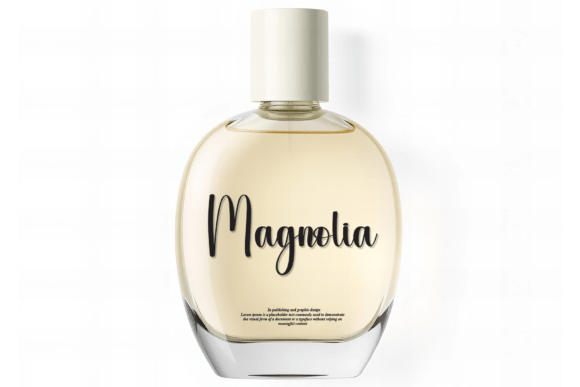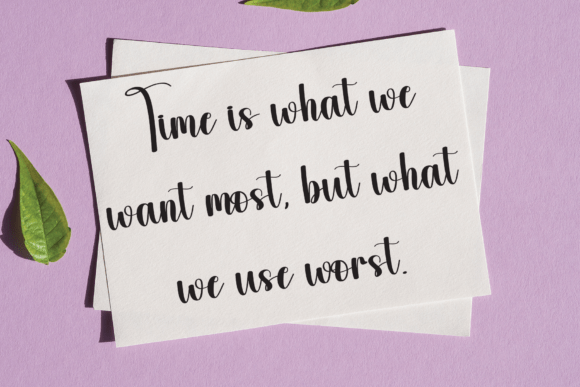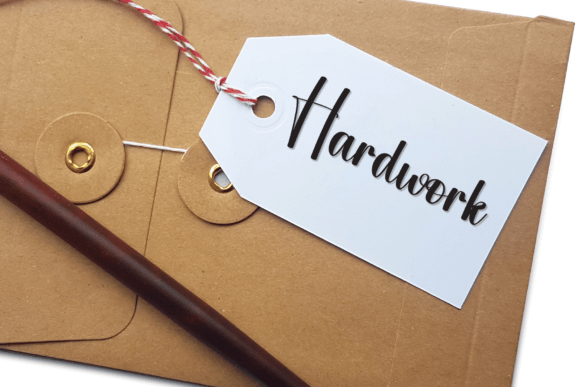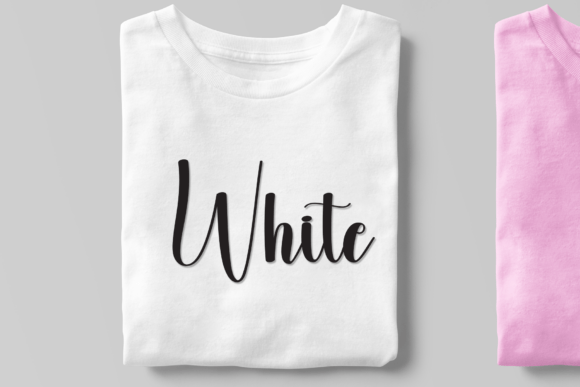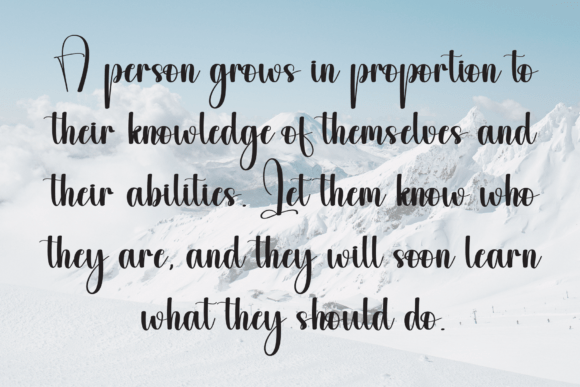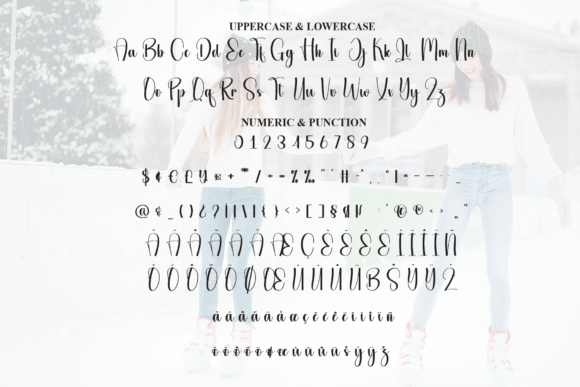
Introduction to Skating Christmas Font
As designers, we’ve all been there – staring at a blank canvas, searching for the perfect font to bring our creative project to life. It’s a moment of clarity, when everything comes together, and our vision takes shape. For many of us, that moment is made possible by discovering the perfect font – one that elevates our design and leaves a lasting impression. Enter the Skating Christmas Font, a stylish script font that’s about to become your new go-to design resource.
With its elegant strokes, fluid curves, and carefully crafted letterforms, the Skating Christmas Font exudes a sense of refinement and sophistication. Whether you’re working on a high-quality logo, invitation, or packaging design, this font delivers both versatility and visual appeal. And the best part? You can download it with a transparent background, making it easy to layer and customize to fit your unique design style.
Key Features of Skating Christmas Font
- Unique and festive design ideal for creative projects and holiday-themed designs.
- Perfect for use in various design projects, including posters, greeting cards, and social media graphics.
- Designed to be highly legible and visually appealing, making it a great addition to any creative project.
Honest Review: Skating Christmas Font
I recently had the chance to work with the Skating Christmas Font and I must say, it was a delightful experience. This free download is a great addition to any design resource, perfect for creative projects that need a touch of festive cheer.
One of the things that works well with this font is its high quality design, which makes it suitable for a wide range of applications. The transparent background allows for easy integration with other design elements, making it a breeze to use in your creative project.
Here are some of the things I liked about the Skating Christmas Font:
- ✨ High-quality design that’s perfect for festive projects
- ✨ Easy to use, with a transparent background for seamless integration
- ⚠️ Limited character set, which may not be suitable for longer texts
Overall, I’m impressed with the Skating Christmas Font. It’s a great resource for designers looking to add some festive flair to their creative project. While it may have some limitations, it’s definitely worth considering for your next design project.
The Skating Christmas Font is a high-quality design resource ideal for creative projects that require a festive touch. With a transparent background, this font is versatile and easy to use in various design applications.
Tips for Getting the Most Out of Skating Christmas Font
For optimal results, use the Skating Christmas Font in conjunction with other festive design elements, such as Christmas-themed graphics and illustrations. You can also experiment with different font sizes and colors to create a unique and eye-catching design.
The Skating Christmas Font is ideal for various creative projects, including Christmas card designs, party invitations, and holiday social media posts. Its high-quality design and transparent background make it a versatile resource for designers of all levels.